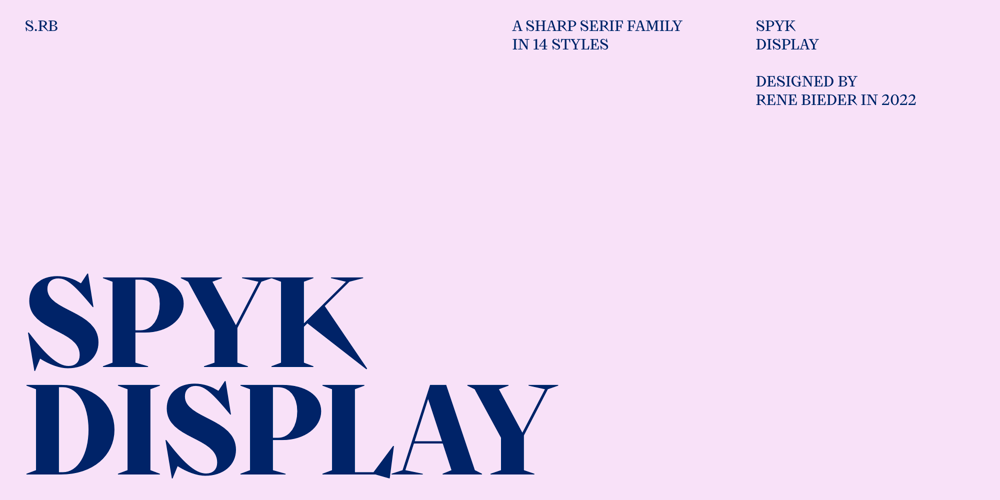
Spyk Display
Spyk Display font
Spyk Display Font Family was designed by René Bieder and published by René Bieder. Spyk Display contains 14 styles and family package options. Enter Spyk, the bold and audacious typeface that defies conventions and refuses to fade into the background. This vibrant and dynamic family commands attention, exuding a sense of liveliness and freshness that injects every design with a surge of energy. With its sharp edges and robust forms, Spyk possesses a razor-sharp quality that adds an extra punch to your visual communication. It is unapologetically muscular, radiating strength and power in every character. It has the ability to carry information with precision and impact, making bold statements.However, Spyk refuses to be confined by limitations. It doesn’t settle for mere functionality; instead, it seeks to unleash its full expressive potential. This versatile typeface thrives on its ability to break free from conventions, exploring new horizons and pushing the boundaries of typographic design. Whether it’s a striking headline, eye-catching branding, or a captivating display of creativity, Spyk is always ready to unleash its raw personality and make a lasting impression.Spyk is available in two optical sizes – Text and Display– optimized for each specific typographic use case.